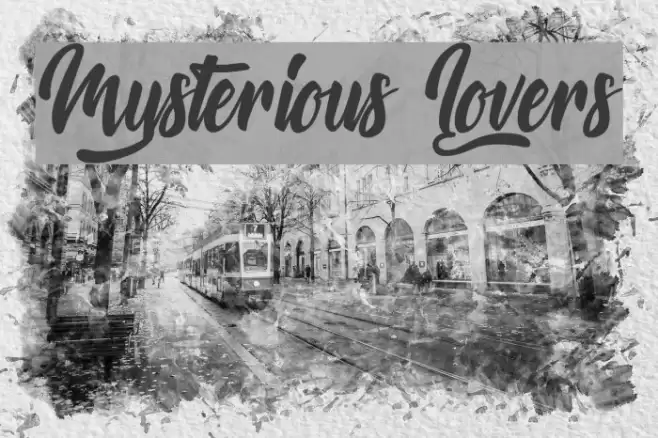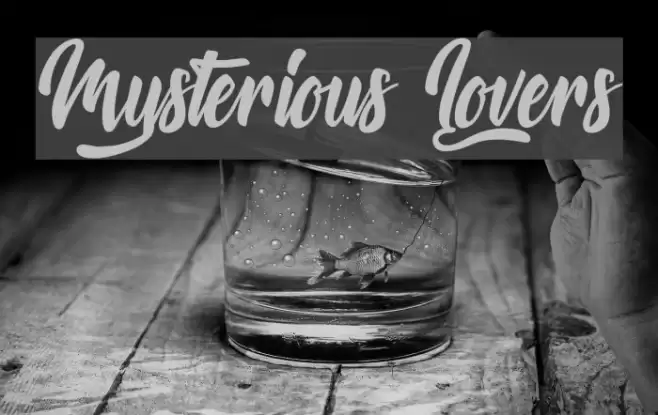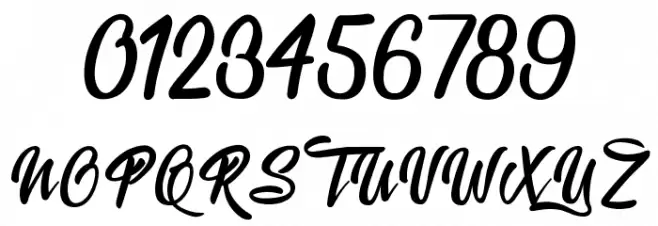
Mysterious Lovers Font
Mysterious Lovers Description
This font features a bold, flowing script style that exudes elegance and sophistication. The characters are interconnected with smooth, sweeping curves, giving it a dynamic and fluid appearance. The uppercase letters are particularly ornate, with exaggerated loops and flourishes that add a touch of drama. The lowercase letters maintain a consistent style, with a slightly more restrained design that ensures readability. The numbers are bold and clear, matching the overall aesthetic of the font. Special characters are included, maintaining the same decorative flair. This font is ideal for projects that require a touch of elegance and personality.
A bold, elegant script font with flowing, interconnected characters from Uncategorized fonts.
- Overall Style: Elegant, Decorative